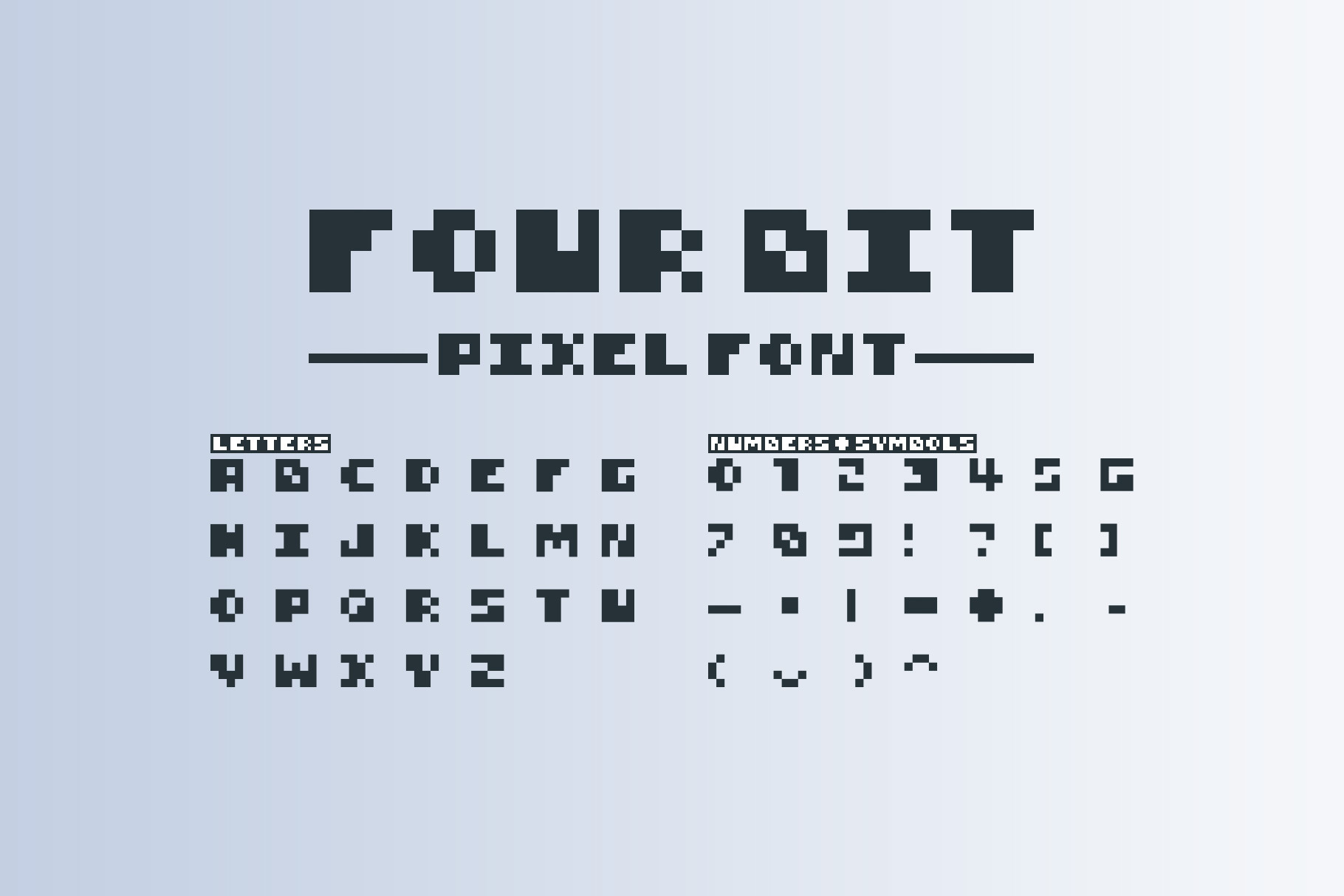
4 BIT Pixel font
4x4 pixel grid font! great for a display. the font is "pixel Perfect" especially if you turn the AA of in your editor. English only with a-z and 0-9 along with some bounce characters to hopefully fill in all your needs!.
great for a game or a graphical UI. do not recommend for anything greater than 1-6 words.